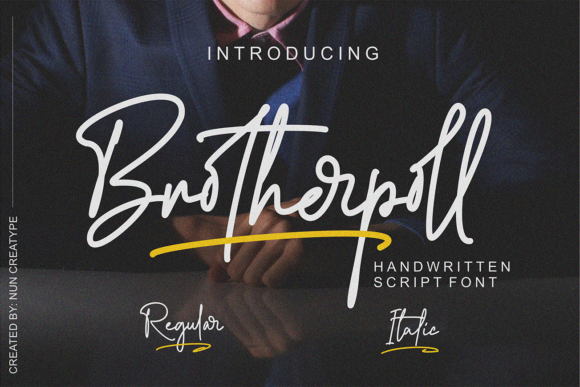
Indulge in the beauty of handwriting with Brotherpoll Font, a captivating script font that oozes elegance and warmth. This stunning typeface brings a touch of delightful whimsy to your creative projects, adding a dash of personality and charm.
Immerse yourself in the world of Brotherpoll Font, where letters seem to dance with grace, creating a visual masterpiece. Each character is meticulously crafted to reflect the essence of handwritten script, with delicate strokes and curves that evoke a sense of nostalgia and intimacy.
Unleash your creativity with Brotherpoll Font, the perfect companion for branding projects, logos, wedding designs, and countless other projects. Its versatility knows no bounds, allowing you to effortlessly elevate your designs and leave a lasting impression.
Express your individuality with Brotherpoll Font, a font that speaks volumes. Its unique charm captures the essence of handwritten notes, adding a personal touch to your creations. Whether you're designing a logo, crafting a wedding invitation, or creating eye-catching social media graphics, Brotherpoll Font will bring your vision to life with style and finesse.
Don't settle for ordinary fonts that fail to inspire. Embrace the artistry of Brotherpoll Font and unlock a world of creative possibilities. Let your designs shine with a touch of elegance, charm, and sophistication.
Brotherpoll Font, a creation of Nun Creatype, is a testament to the beauty of handwritten scripts. With its enchanting aesthetic and endless versatility, it's the perfect choice for designers, artists, and anyone seeking to add a touch of magic to their projects.